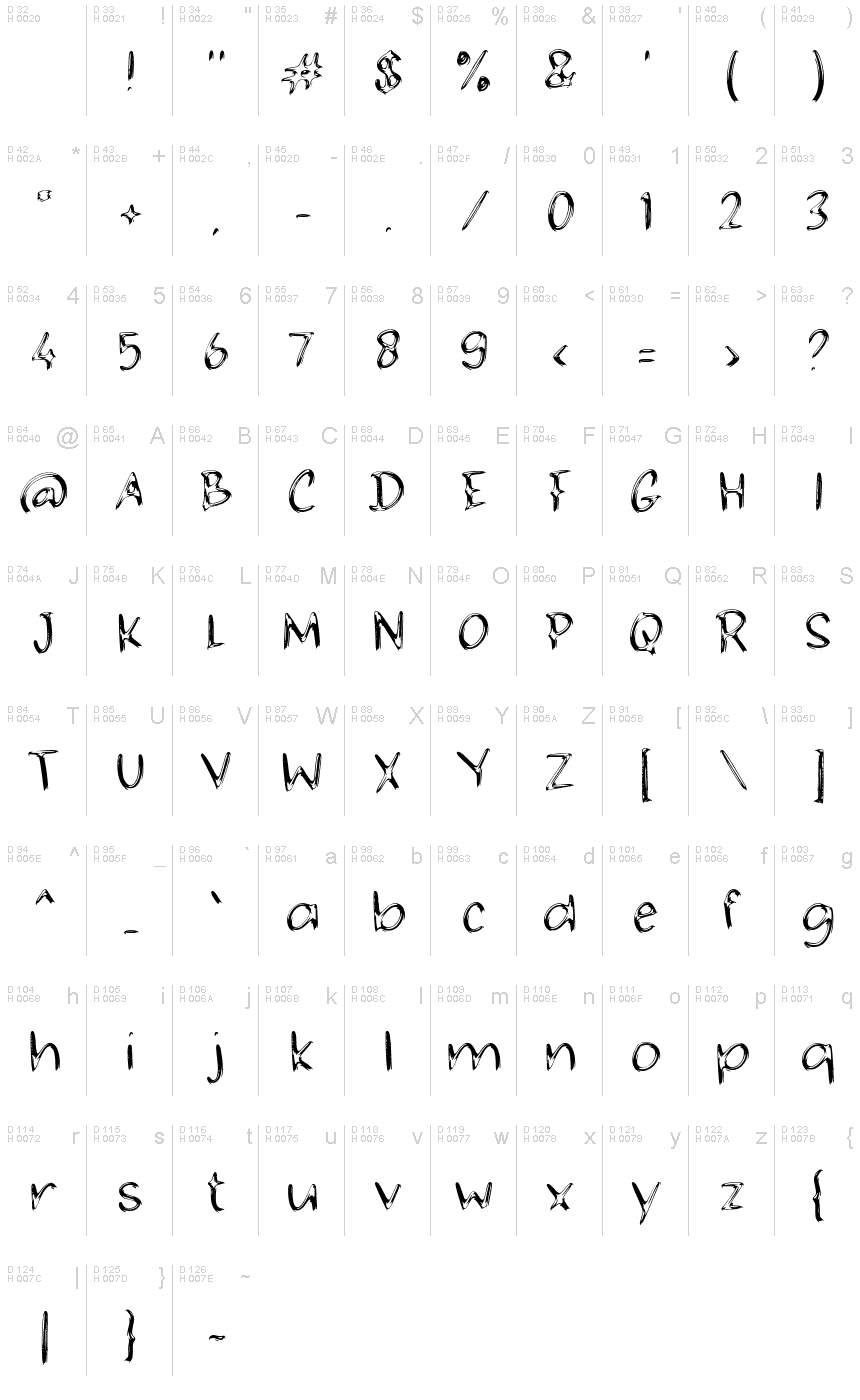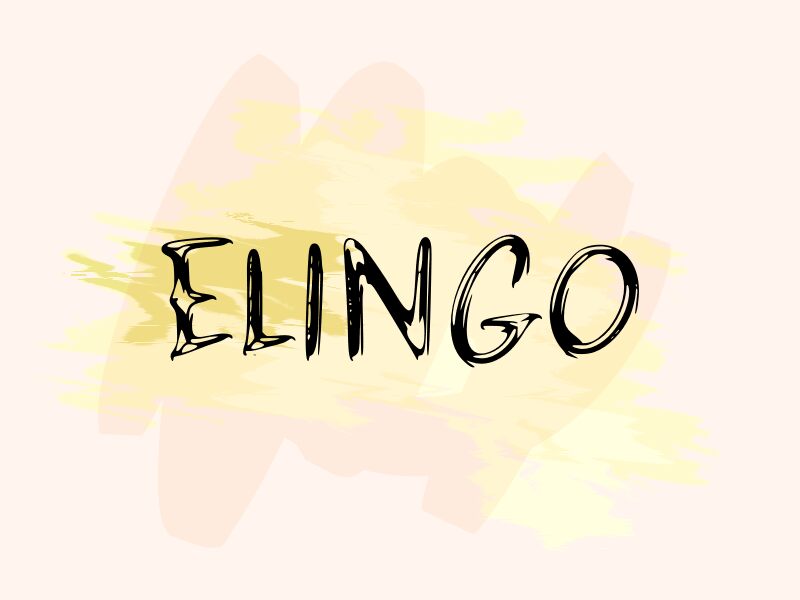
ELINGO
Elingo, a mesmerizing brush font by wep, effortlessly merges elegance with playfulness.
Its semi-light weight adds a delicate touch to any design project, making it perfect for wedding invitations that evoke romance and sophistication. With its flowing strokes and artistic flair, Elingo also lends itself beautifully to branding projects that seek to capture the essence of creativity and imagination. Whether used in logo designs or social media graphics, this enchanting font adds a touch of whimsy and refinement to elevate any visual experience.